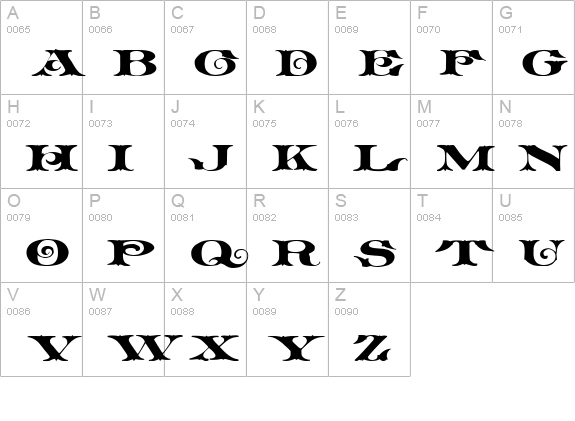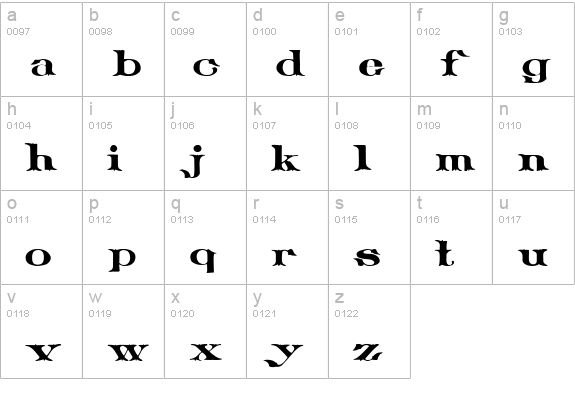
Plowright Demo Font Details
Plowright Demo font is a stunning display typeface that exudes elegance and sophistication. With its unique serifs and stylish curves, this font is perfect for creating eye-catching designs that demand attention. Whether you're working on a branding project, logo design, or any other creative endeavor, Plowright Demo font will surely make a lasting impression. What's even better is that Plowright Demo font is available for free download at FontsMarket.com. Yes, you read that right - this exquisite font can be yours at no cost! So why wait? Head over to FontsMarket.com now and add Plowright Demo font to your collection. Let your creativity soar with this beautiful typeface that is both versatile and captivating.